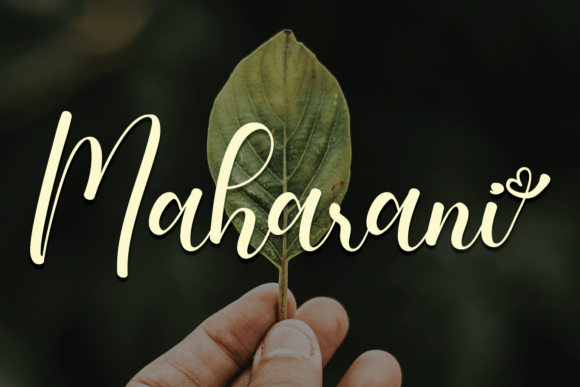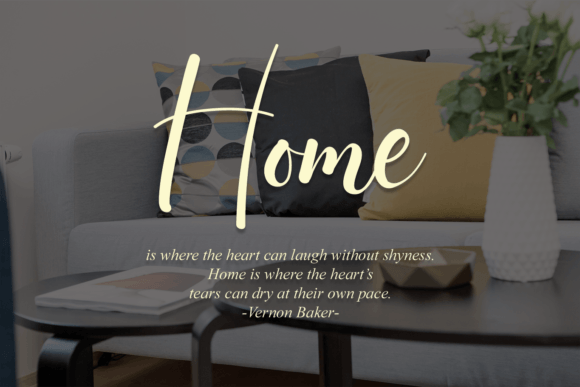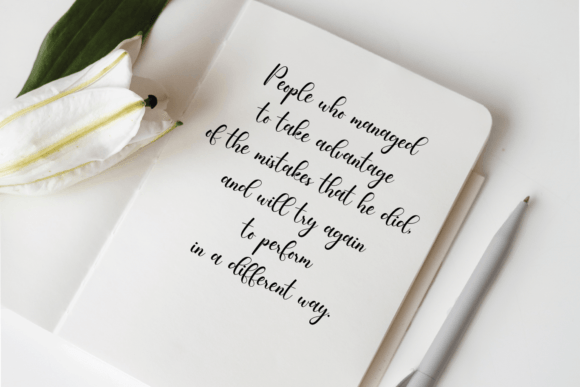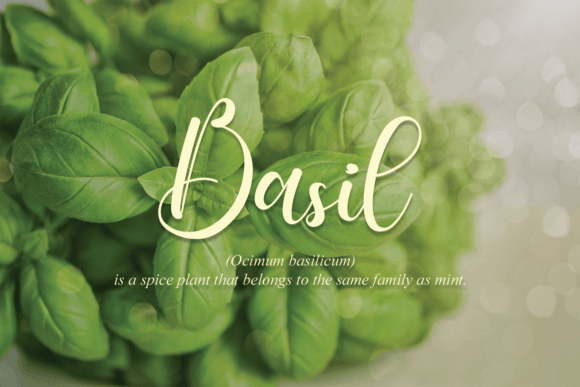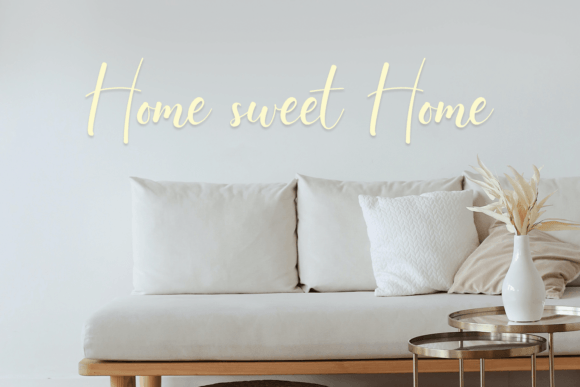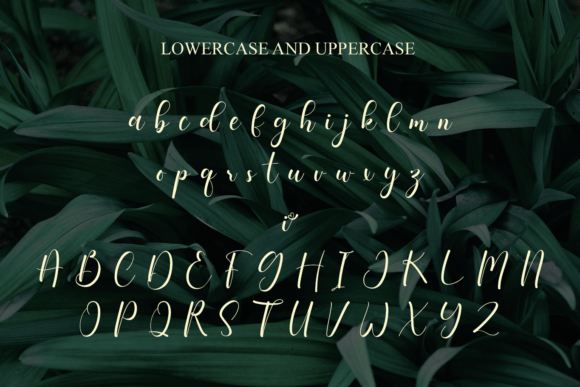
Maharani Font
About Maharani Font
“Maharani” emerges as a delicate, elegant, and flowing handwritten font, characterized by beautiful and well-balanced characters. This font is designed to exude sophistication and pairs seamlessly with a diverse range of designs. By adding “Maharani” to your most creative ideas, you’ll observe how it breathes life into them, enhancing their overall appeal.
The delicacy of “Maharani” is evident in the graceful flow of its characters. Each letter is meticulously crafted to achieve a harmonious balance, contributing to an elegant and refined aesthetic. This quality makes it an ideal choice for projects that demand a touch of sophistication and a seamless integration of script.
In formal applications such as invitations, event materials, or branding, “Maharani” brings a sense of elegance and charm. Its flowing script adds a personal and sophisticated touch, setting the tone for refined and memorable occasions. The font’s versatility allows it to adapt to different design elements, enhancing the overall visual experience.
For creative and artistic projects, “Maharani” complements a wide range of ideas. Whether used in posters, quotes, or any design that requires an elegant and flowing script, this font enhances the aesthetic appeal. Its well-balanced characters contribute to a visually pleasing composition, making your creative concepts come alive.
The adaptability of “Maharani” extends to various design contexts, including logos, product packaging, and more. Its delicate and flowing nature adds a touch of uniqueness, making your designs stand out with a sense of grace and sophistication.
In essence, “Maharani” is not just a font; it’s a design tool that brings delicacy and elegance to your creative endeavors. Embrace its flowing script and well-balanced characters as you infuse it into your designs, and witness how it elevates them to a new level of sophistication. Let “Maharani” be the element that breathes life into your most imaginative ideas, leaving a lasting impression with its delicate and elegant charm.